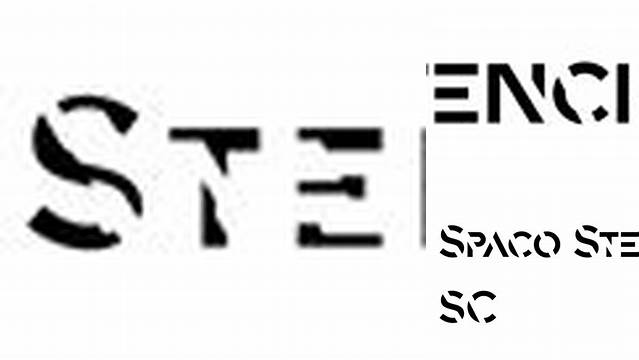
Spaco Stencil SC Font: Free Download Guide
Hey guys! Looking to jazz up your designs with a cool, modern font? The Spaco Stencil SC font might just be what you need. This font is perfect for adding a unique touch to posters, logos, and all sorts of creative projects. Let's dive into everything you need to know about this awesome font and how you can snag it for free.
1. What is Spaco Stencil SC Font?
The Spaco Stencil SC font is a contemporary typeface that combines the clean lines of a stencil design with a touch of modern flair. It stands out with its distinctive cut-out sections, giving it a bold and industrial look. This font is highly versatile and can be used in various design applications, from branding to editorial layouts. Its unique aesthetic makes it a popular choice for designers aiming to create eye-catching and memorable visuals. The Spaco Stencil SC font’s clean design ensures readability while maintaining its unique character. It works well in both large headlines and smaller body text, making it a practical choice for diverse projects. Whether you’re working on a poster, a website, or a logo, this font can add a touch of sophistication and modernity.
2. Key Features of Spaco Stencil SC
One of the key features of the Spaco Stencil SC font is its clean and modern design. The stencil cut-outs are strategically placed to maintain readability while adding a unique visual element. This balance makes it stand out from other stencil fonts, which can sometimes sacrifice clarity for style. Another notable feature is its versatility. It can be used in various sizes without losing its impact, making it suitable for both headlines and body text. The font also includes a range of characters, including uppercase and lowercase letters, numbers, and punctuation marks, giving designers the flexibility they need to create comprehensive designs. Additionally, the Spaco Stencil SC font often comes with multiple weights and styles, such as bold and italic, further enhancing its adaptability. Its modern aesthetic makes it a great choice for projects that aim to convey a sense of innovation and forward-thinking. This font is designed to be both visually appealing and highly functional, ensuring that it meets the needs of a wide range of design projects.
5. Using Spaco Stencil SC in Graphic Design
Using Spaco Stencil SC in graphic design can bring a modern and industrial edge to your projects. This font is particularly effective in creating eye-catching headlines and logos due to its unique stencil design. When incorporating it into your designs, consider the overall aesthetic you're aiming for. Spaco Stencil SC works well in projects that require a bold and contemporary look, such as posters, website headers, and branding materials. Pair it with clean, minimalist graphics to let the font stand out, or combine it with other complementary fonts to create a balanced and visually appealing composition. Experiment with different weights and styles of the font to achieve the desired impact. In smaller text sizes, ensure that the stencil cut-outs don't compromise readability. By carefully integrating Spaco Stencil SC into your designs, you can create visuals that are both stylish and functional.
6. Spaco Stencil SC for Logo Design
The Spaco Stencil SC font is an excellent choice for logo design, offering a modern and distinctive look that can help your brand stand out. Its stencil-style cutouts add a unique visual element that can make your logo more memorable and impactful. When using this font for a logo, consider how the negative space created by the stencil design interacts with the overall shape and form of your logo. This can be used to create interesting visual effects and convey specific messages about your brand. For instance, a tech company might use Spaco Stencil SC to communicate innovation and cutting-edge technology. It's also important to ensure that the logo remains legible and recognizable, even at smaller sizes. Experiment with different weights and variations of the font to find the perfect balance between style and readability. By carefully incorporating Spaco Stencil SC into your logo design, you can create a strong and lasting visual identity for your brand.
7. Spaco Stencil SC for Web Design
In web design, the Spaco Stencil SC font can add a unique and modern touch to your website. Using this font for headers and titles can immediately grab the visitor's attention and create a distinctive brand identity. However, it’s crucial to use it sparingly and strategically. Overusing stencil fonts can make the text difficult to read, especially in smaller sizes. Therefore, reserve Spaco Stencil SC for larger headings and key call-to-action buttons where readability is less of a concern. Pairing it with a simpler, more legible font for body text can balance the visual impact and ensure a pleasant reading experience for your users. Additionally, consider the overall design aesthetic of your website. Spaco Stencil SC works best with modern and minimalist designs, where its unique stencil style can truly shine. By carefully integrating this font into your web design, you can create a visually appealing and engaging online presence.
8. Spaco Stencil SC in Print Media
When it comes to print media, Spaco Stencil SC can be a fantastic choice for creating impactful designs. Its distinctive stencil cut-outs make it ideal for posters, flyers, and magazine layouts where you want to grab the reader's attention. In print, you have more control over the final output compared to web design, which allows you to experiment with different sizes and styles without worrying too much about screen rendering issues. However, it's still important to ensure that the font remains legible, especially in smaller text sizes. Use Spaco Stencil SC for headlines, titles, and other prominent elements to add a touch of modernity and sophistication to your print designs. Pair it with high-quality images and graphics to create visually stunning compositions that leave a lasting impression on your audience. Whether you're designing a promotional poster or a stylish magazine spread, Spaco Stencil SC can help you achieve a professional and eye-catching result.
9. Pairing Spaco Stencil SC with Other Fonts
Pairing Spaco Stencil SC with other fonts can create visually appealing and balanced designs. Since Spaco Stencil SC has a strong and distinctive personality, it's important to choose fonts that complement it without overpowering it. A good approach is to pair it with a clean and simple sans-serif font for body text. This will ensure that the text remains legible and doesn't compete with the stencil design of Spaco Stencil SC. Some popular sans-serif fonts that work well include Helvetica, Arial, and Open Sans. Alternatively, you can pair it with a classic serif font for a more traditional and elegant look. Fonts like Times New Roman or Garamond can add a touch of sophistication while still allowing Spaco Stencil SC to stand out. Experiment with different font pairings to find the combination that best suits your design needs. Remember to consider the overall aesthetic you're aiming for and choose fonts that work together harmoniously to create a cohesive and visually appealing design.